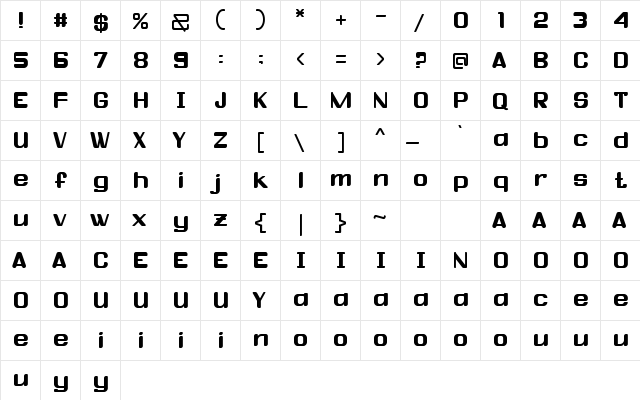
Vivi Kharisma Regular
Design Context for Vivi Kharisma Typeface
Vivi Kharisma offers clean, dependable letterforms without strong stylistic allegiance, making it a practical choice for designers who need flexibility.